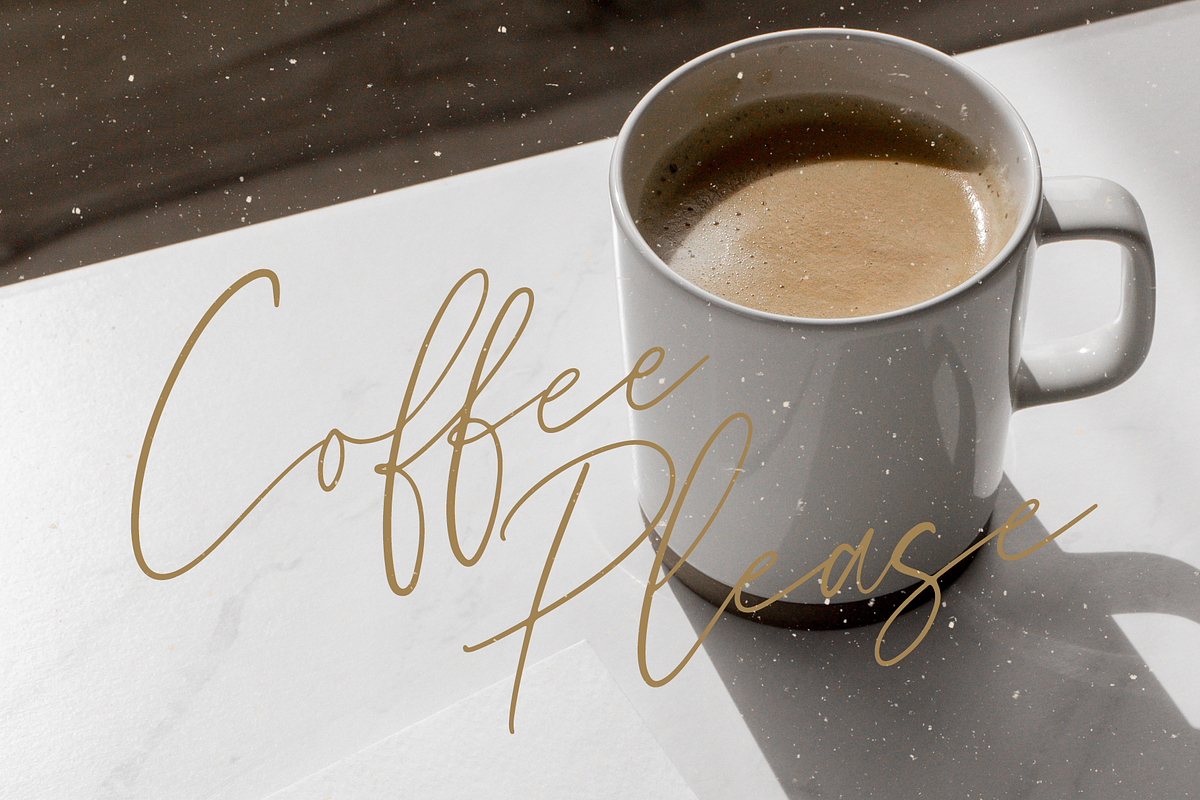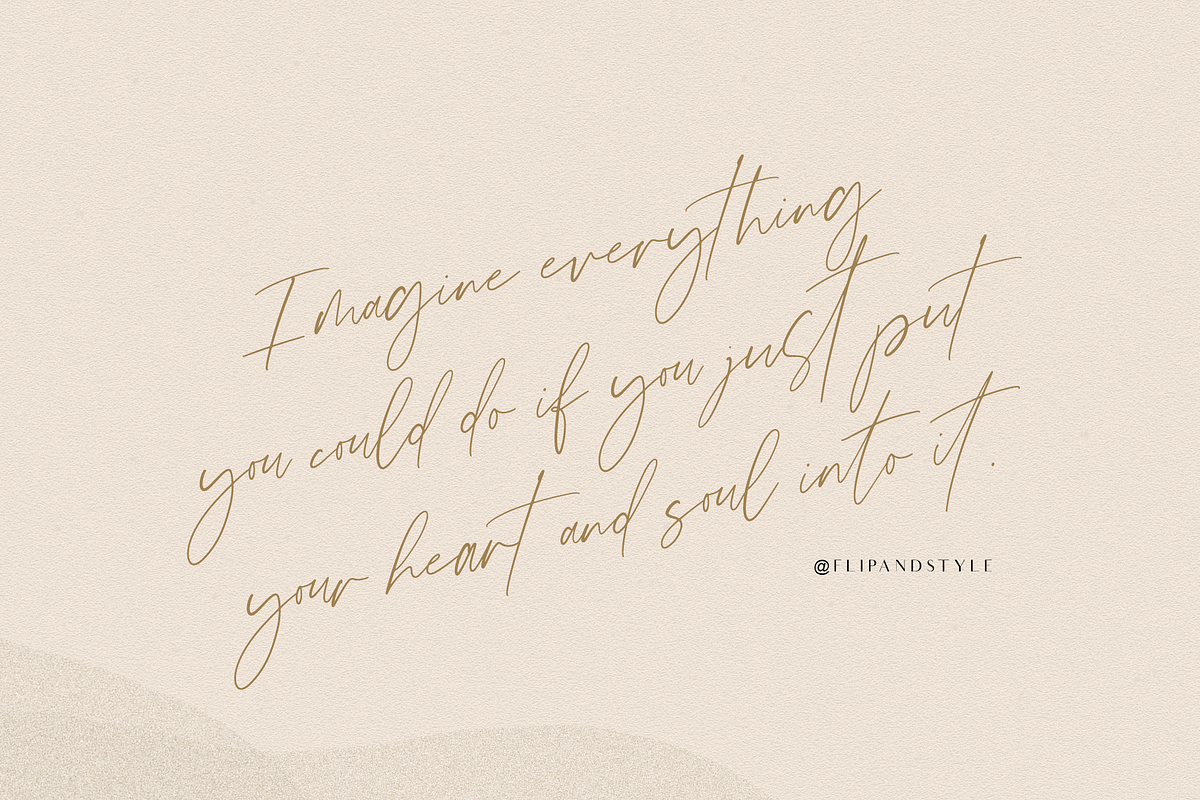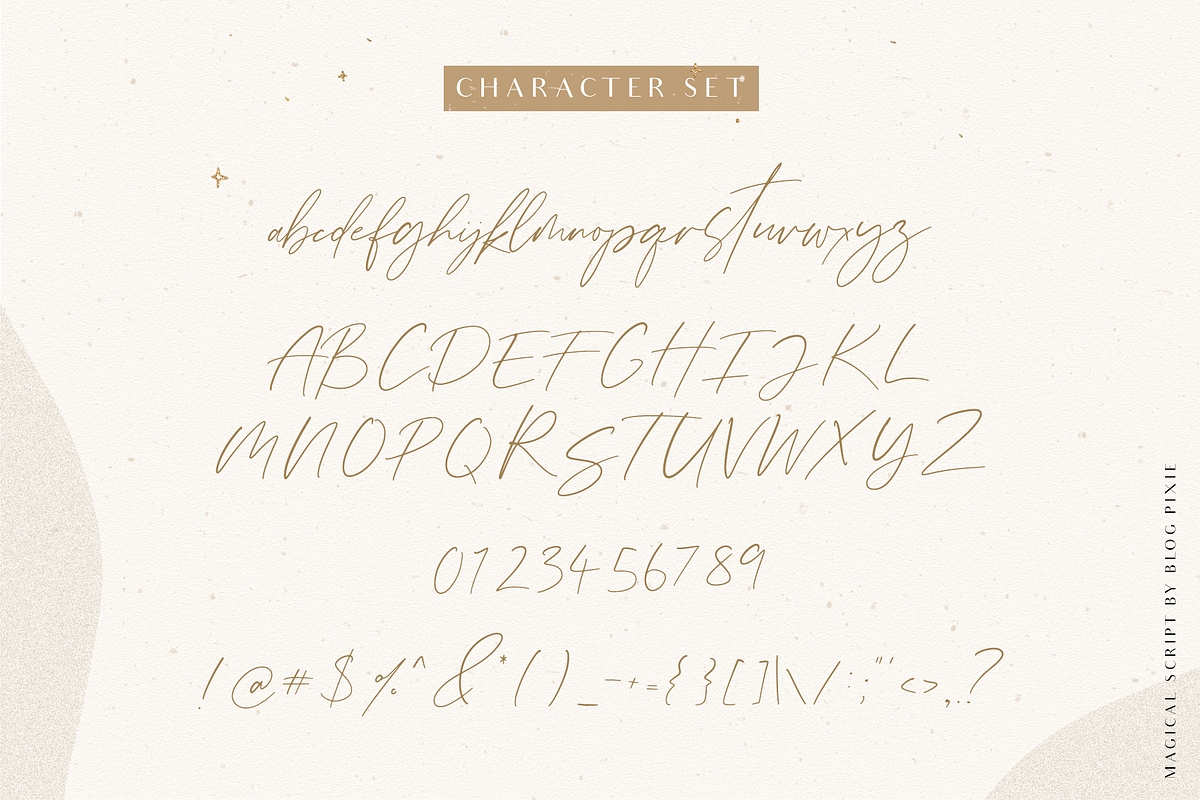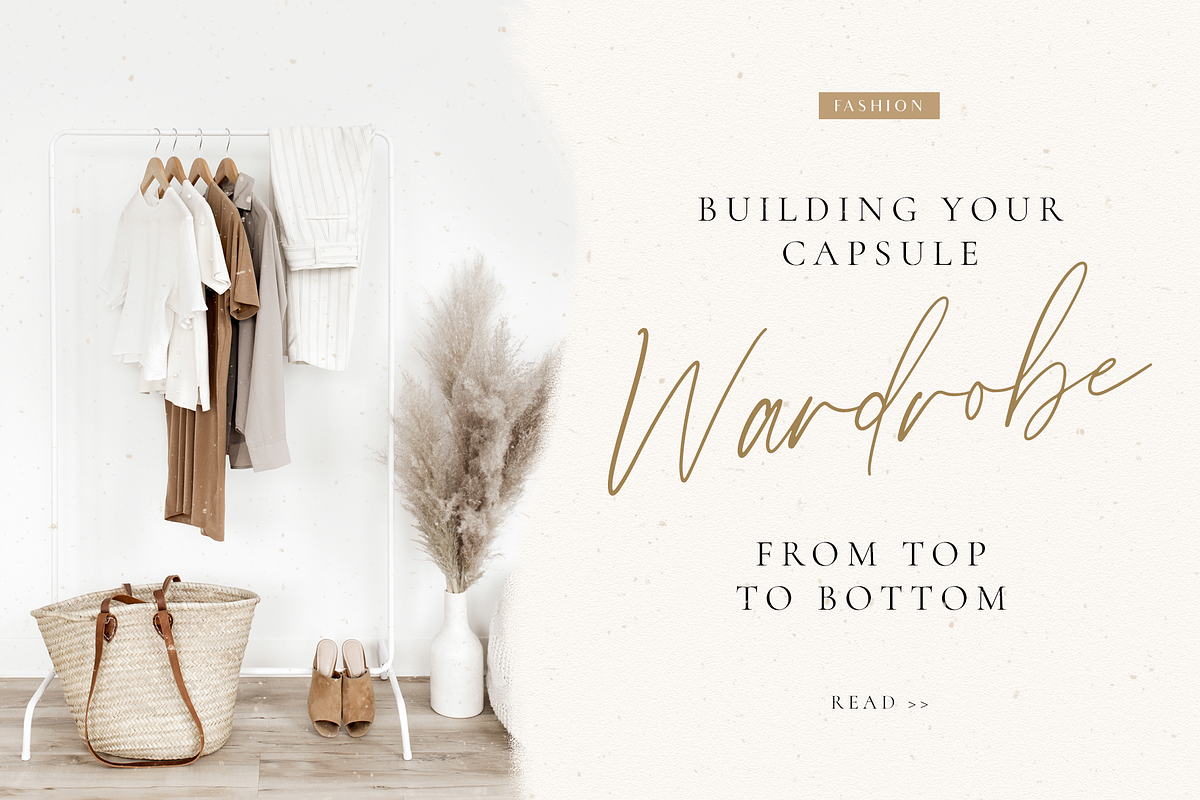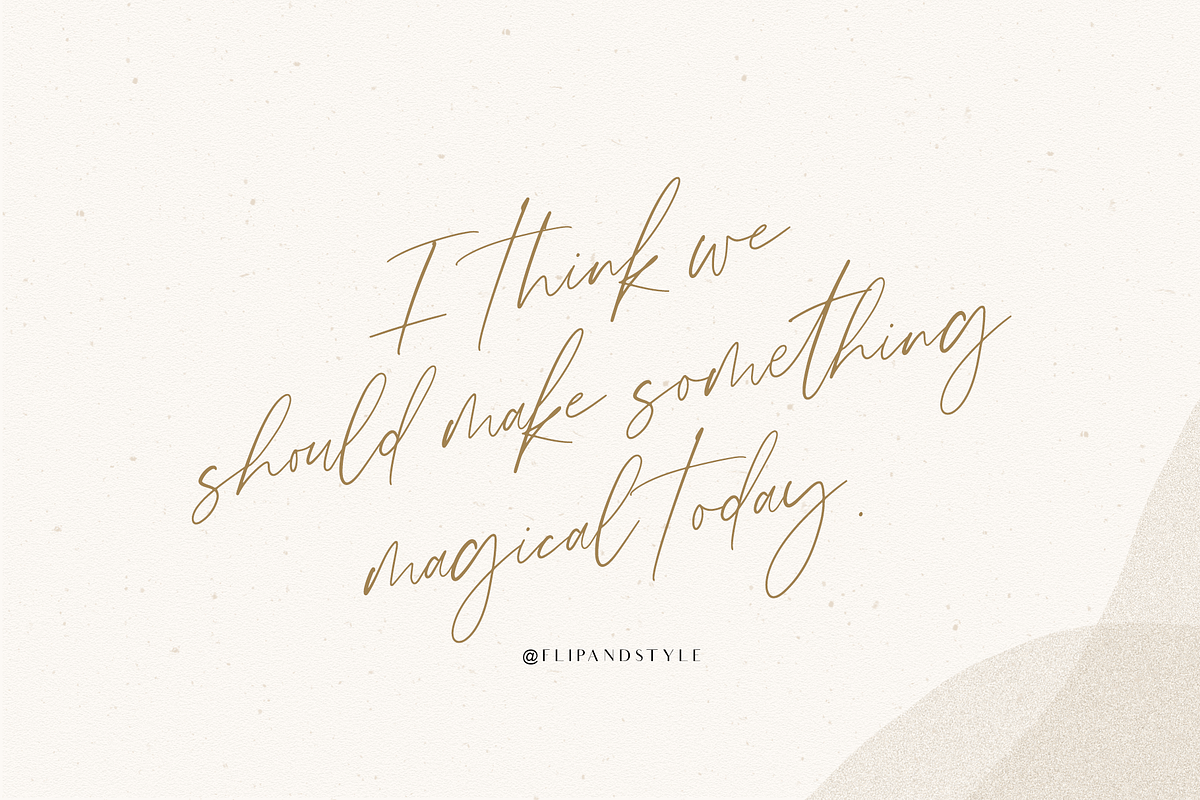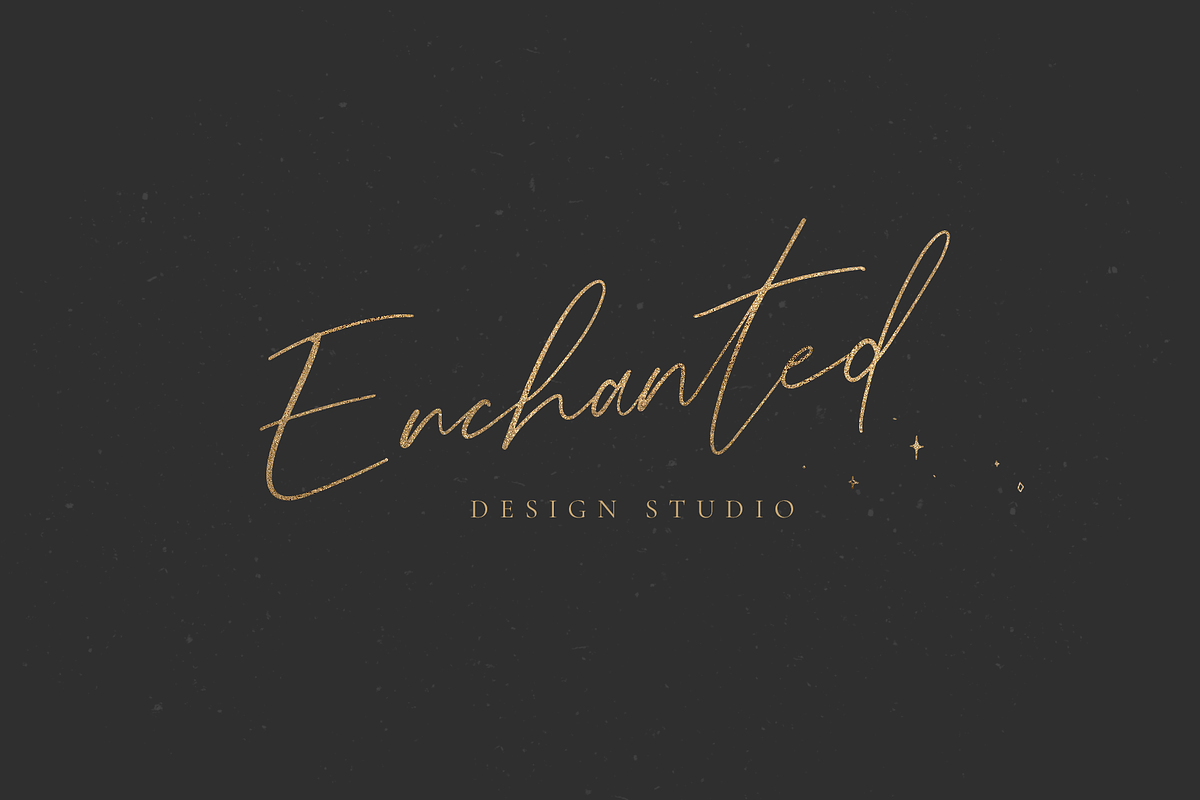
Magical Script Font
Magical script font is an enchanting handwriting font to download for personal and commercial use.
In a scattered handwritten style, it's perfect to add a flourishing hit of modern spark to any creative project.
Use Magical script for quotes, invitations, stationery, print design, logos, magazine, eBooks and more.
Magical Script Font by Design Pixie fits naturally into Branding, posters, packaging, typography.